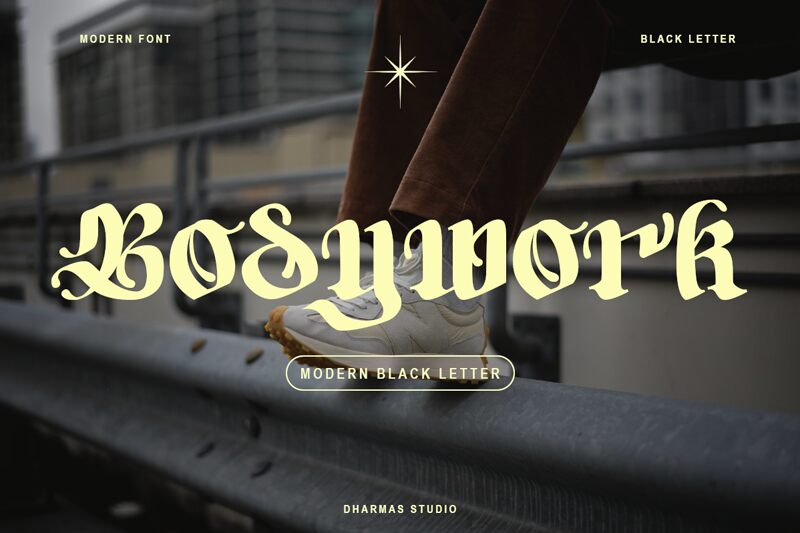
Bodywork, crafted by the skilled designers at Dharmas Studio, is a captivating gothic font that evokes a sense of medieval grandeur. Its intricate, ornate letterforms exude a timeless elegance, seamlessly blending tradition with a modern aesthetic. The bold, dynamic strokes and intricate flourishes create a striking visual impact, making Bodywork a standout choice for projects seeking to convey a sense of historical significance and refined sophistication.
This versatile font lends itself to a variety of applications, from high-end branding and editorial design to captivating event invitations and eye-catching advertising campaigns. Its strong personality and impactful presence make Bodywork an excellent selection for projects that aim to command attention and leave a lasting impression on the viewer.